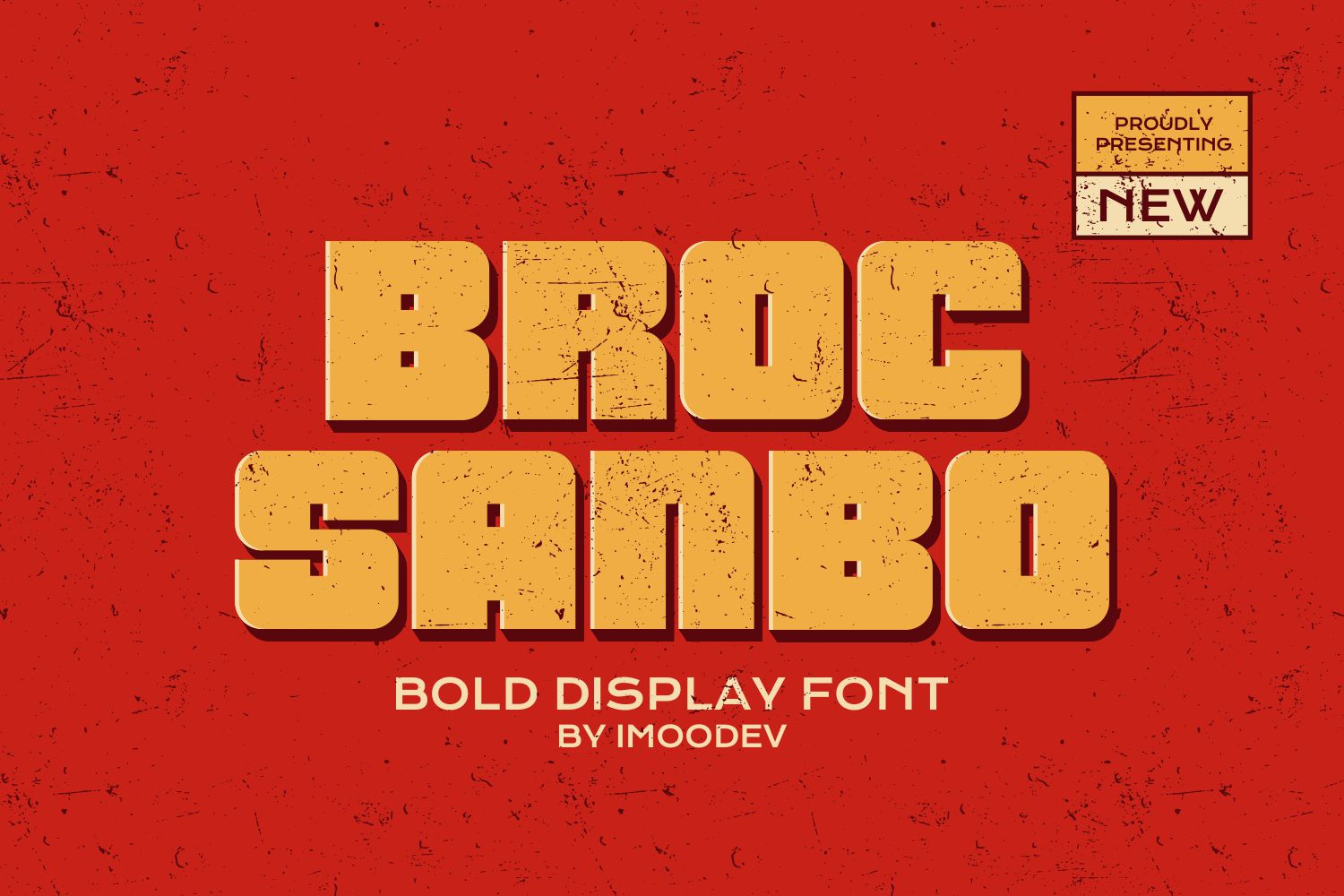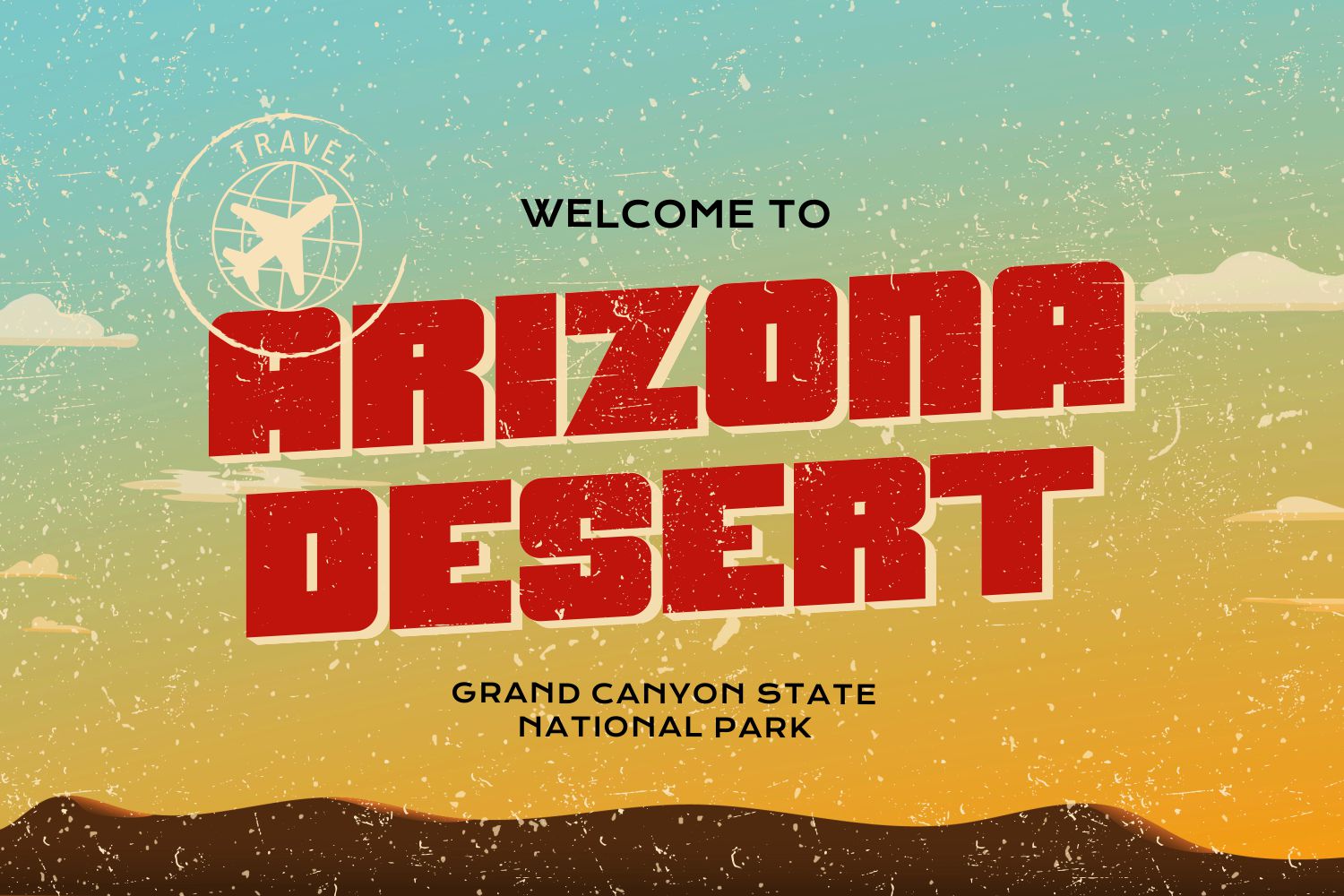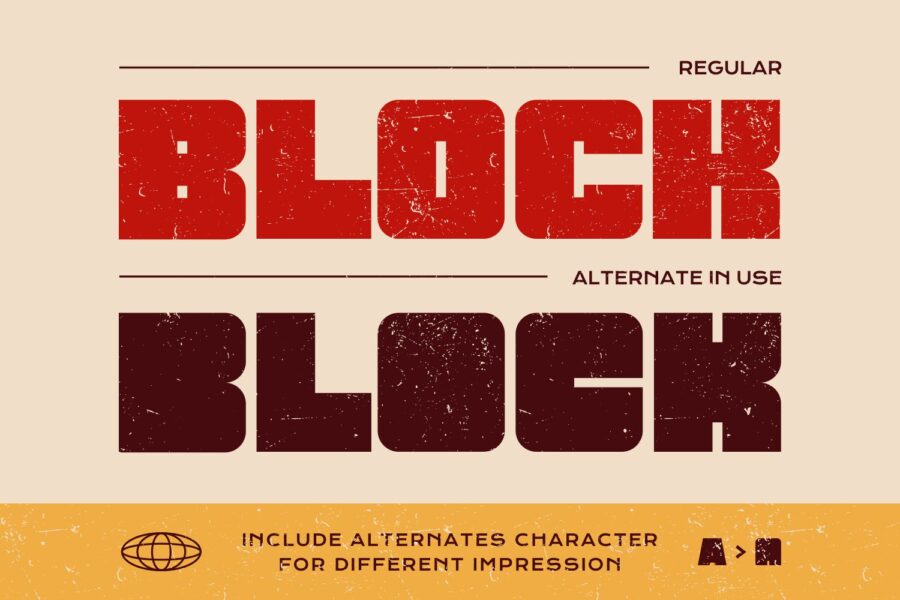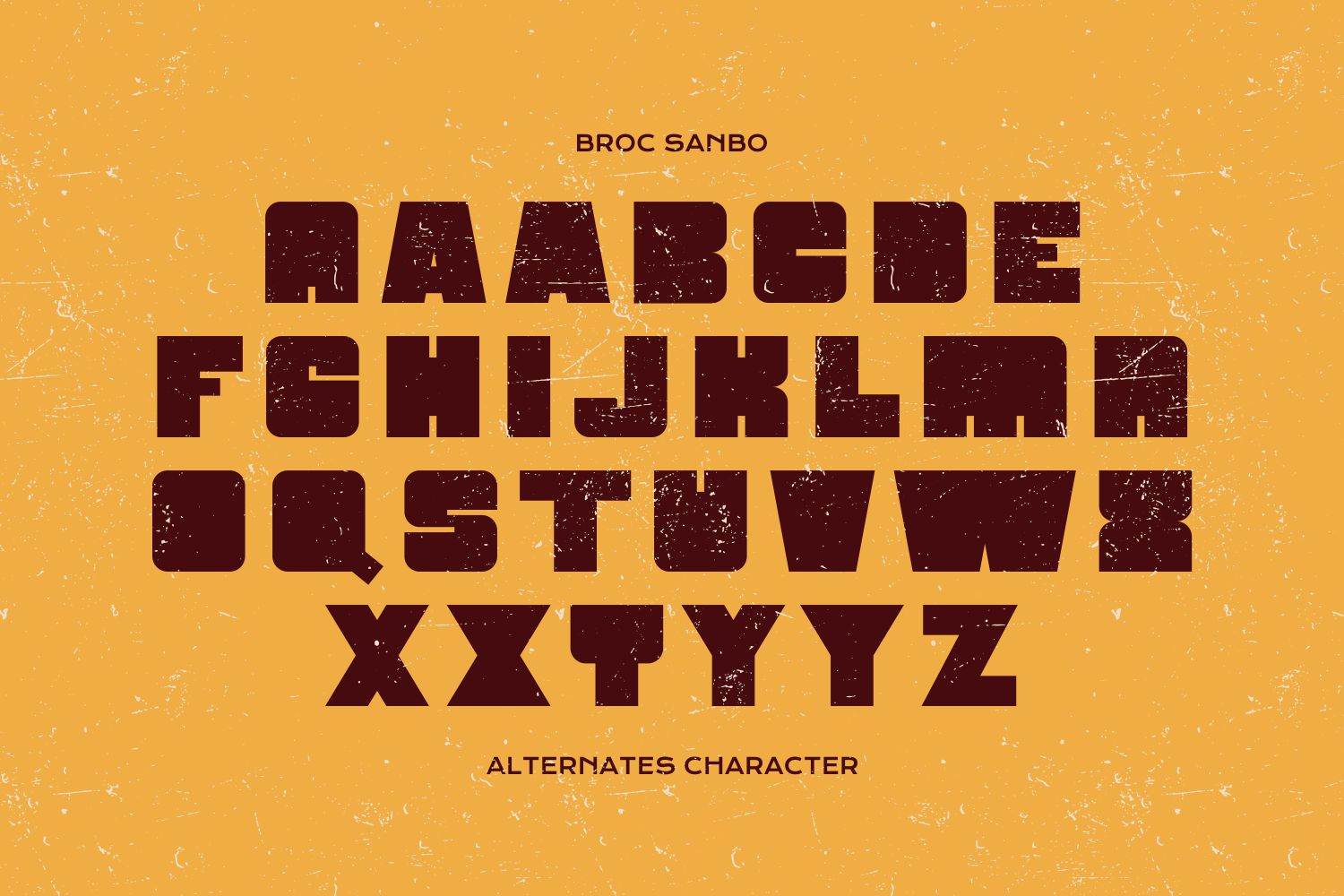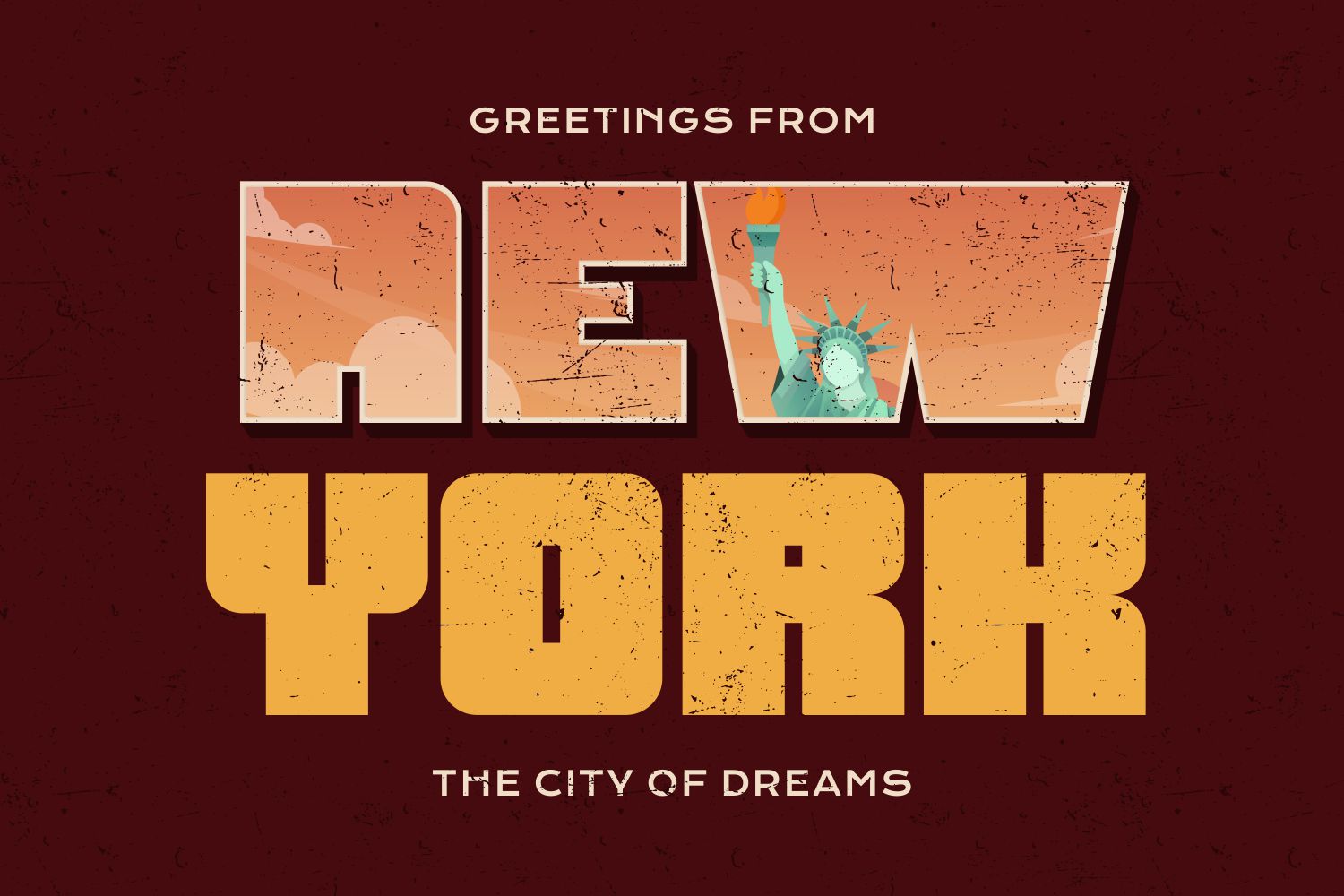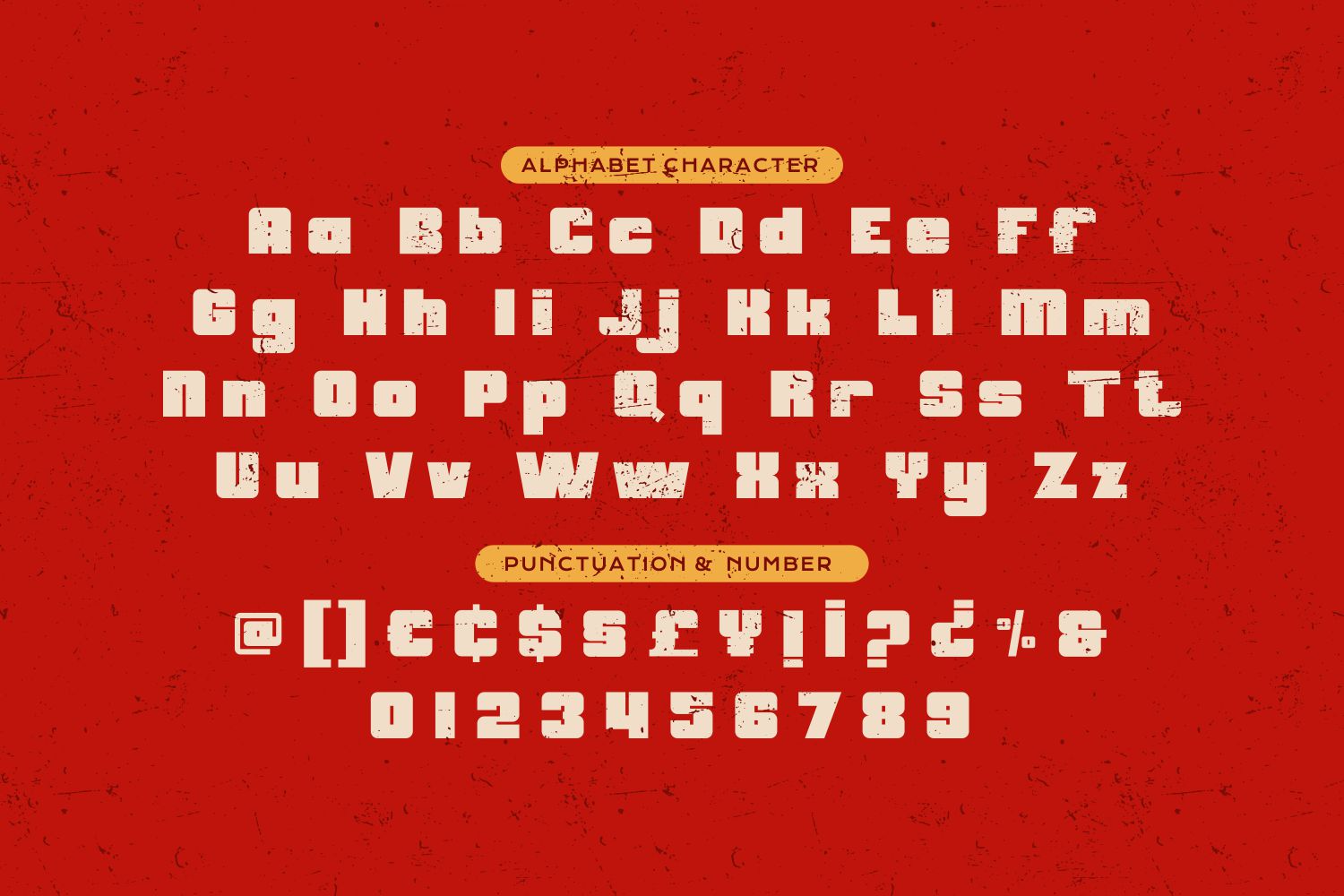
Broc Sanbo
Broc Sanbo is a bold and rugged display font with a distressed texture that captures a vintage, adventurous spirit. Its strong block-style letterforms are designed to command attention, making it perfect for retro posters, travel designs, outdoor branding, and bold product packaging. The weathered effect adds a sense of authenticity and grit, evoking the feel of old signage and classic Americana.
This font also comes with alternate characters, giving you creative flexibility to achieve different moods and visual impressions. Whether used for headlines, logo designs, or themed graphics, Broc Sanbo provides a powerful and timeless aesthetic. It’s an ideal choice for projects that want to combine boldness with a nostalgic, handcrafted charm.